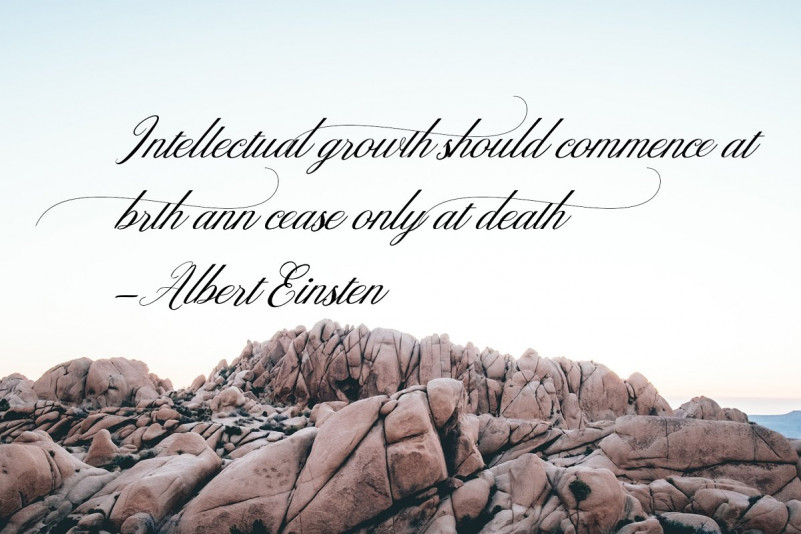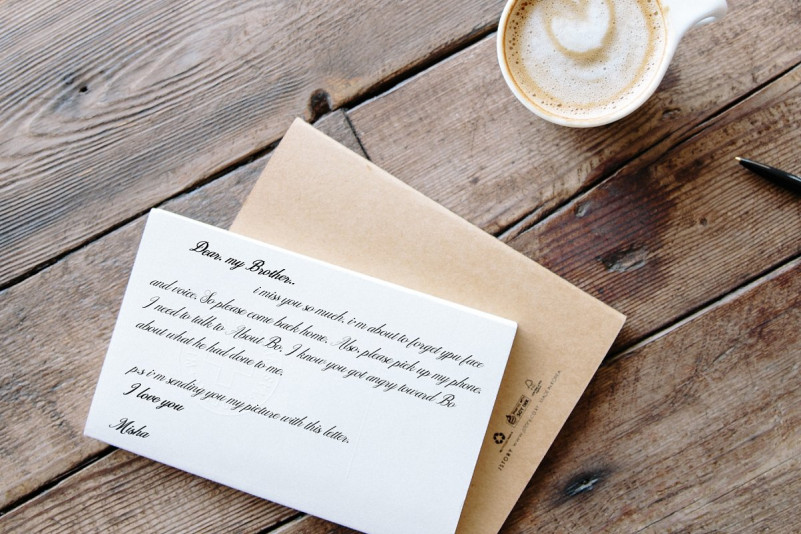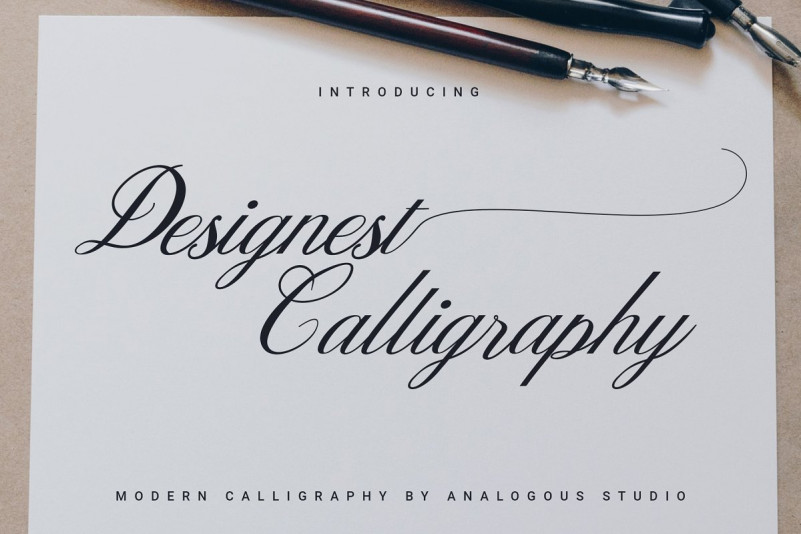
Designest Font
NEW ARRIVAL ! Designest Calligraphy. It’s an modern typeface. Designest Calligraphy, including swashes, ligatures,Alternate and International support for most Western Languages is included.
This one should make your designs instantly professional and jaw-dropping! Be a perfect professional in a minute and start creating modern designs like ads, sales, logos, branding, posters, social media text overlays today!